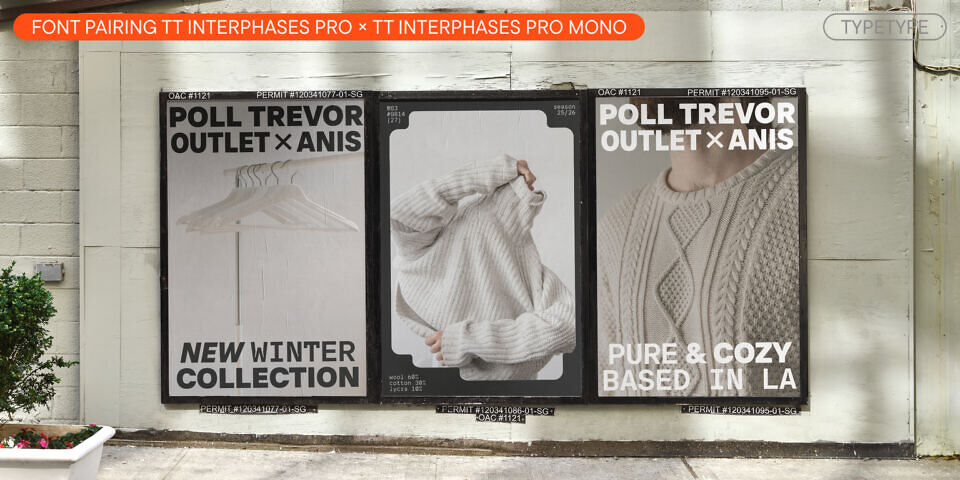
TT Interphases Pro is a Neo-Grotesque typeface specifically designed for working with interfaces. Text set in this font appears uniform thanks to its static proportions. A larger height of the lowercase characters improves screen legibility, while neutral glyph characteristics and squared forms of the round characters allow it to remain readable even in smaller point sizes.
TT Interphases Pro has a neutral yet aesthetic character. The main subfamily serves as an ideal foundation for any project. The TT Interphases Pro Mono subfamily—with its interesting glyph forms and consistent size of em-spaces—has a more distinctive appearance and is well-suited not only for coding but also for creating design products. The Condensed version allows you to make text blocks more compact.